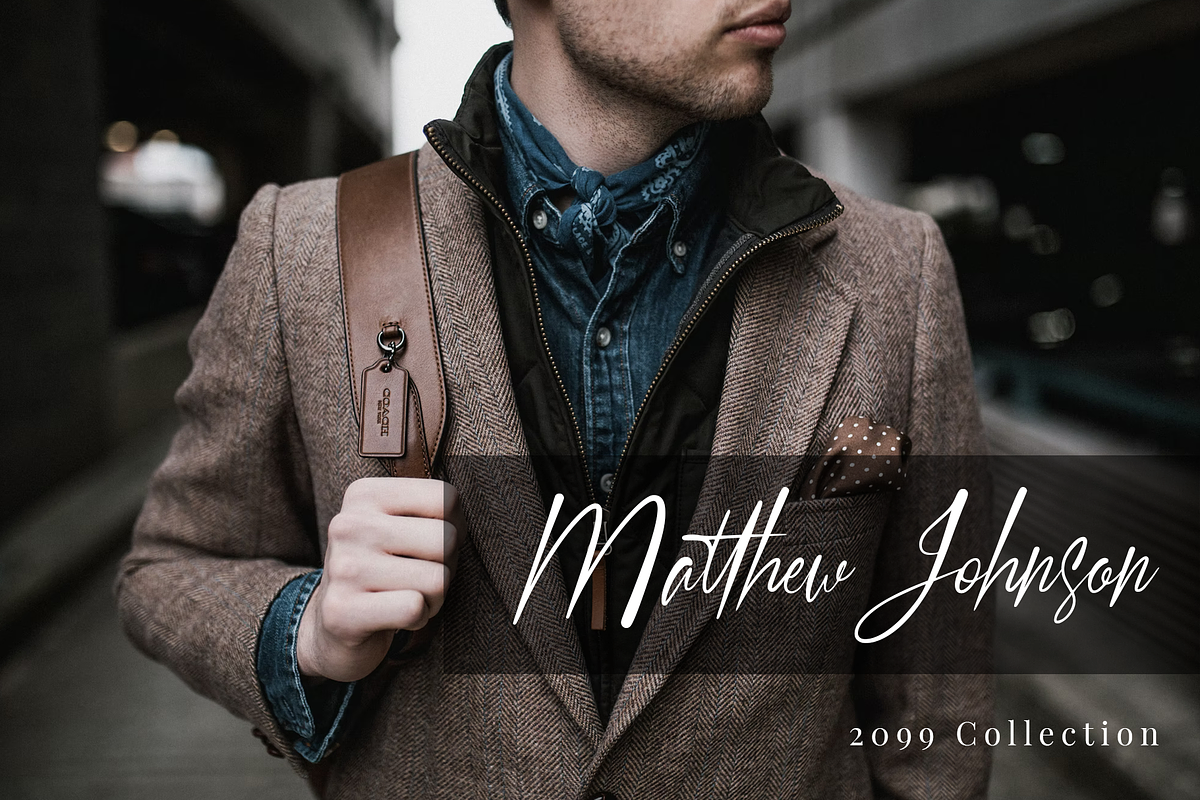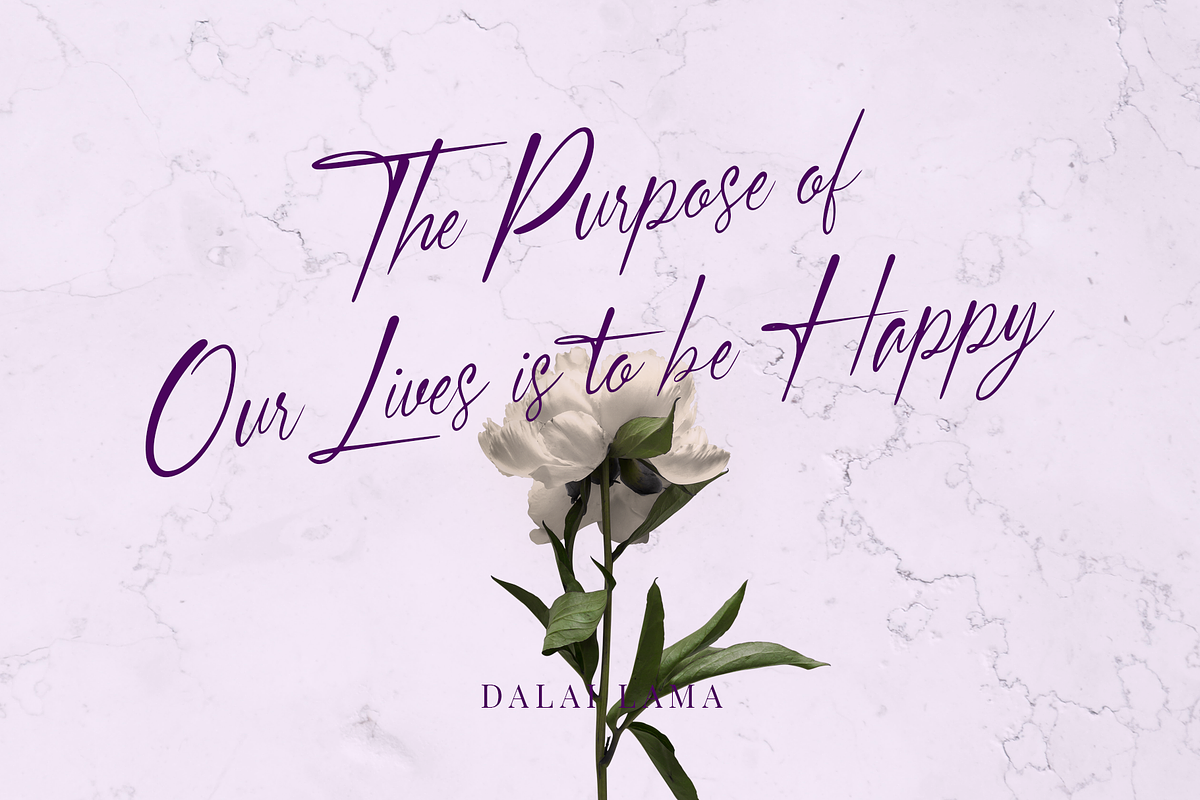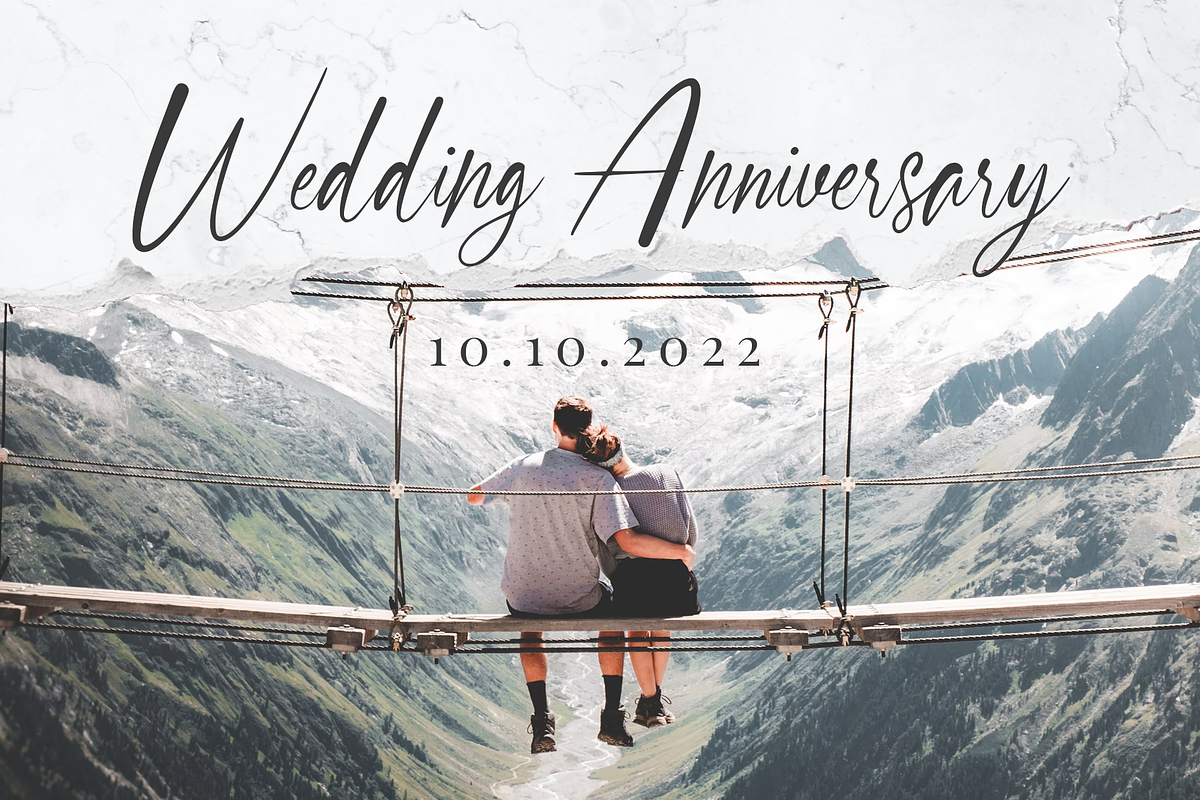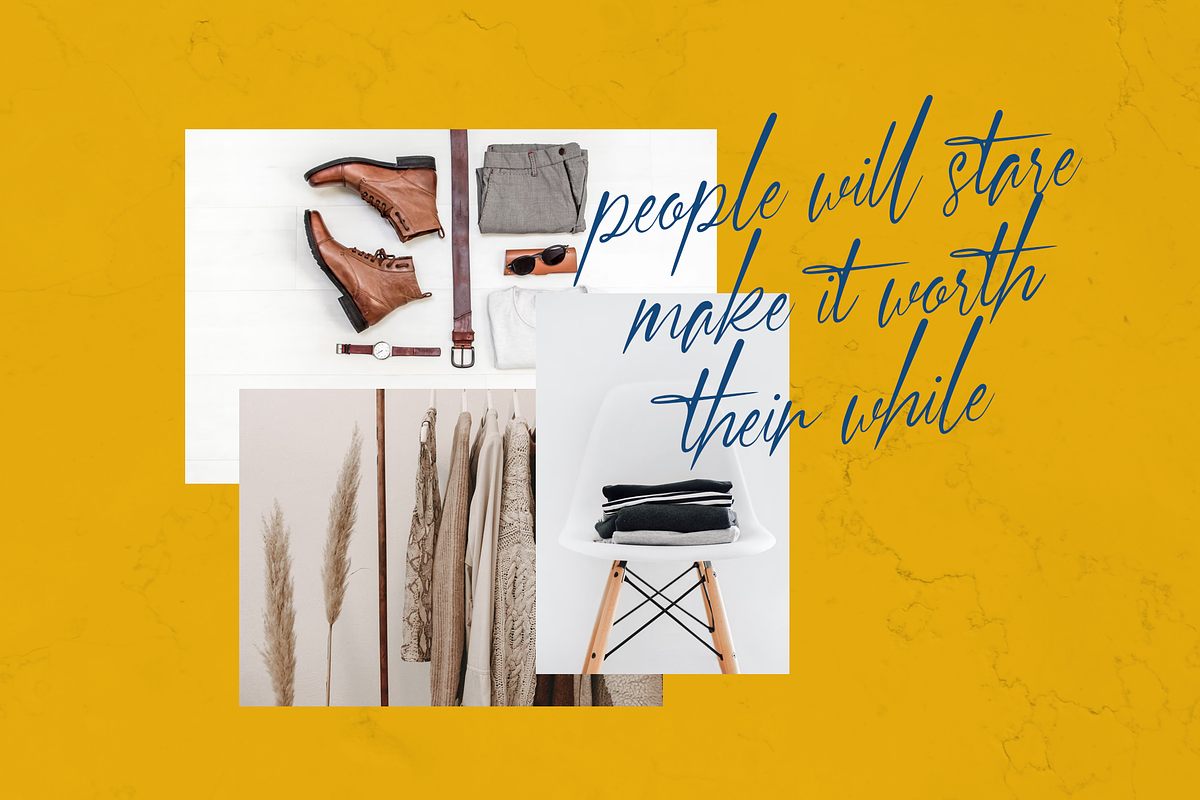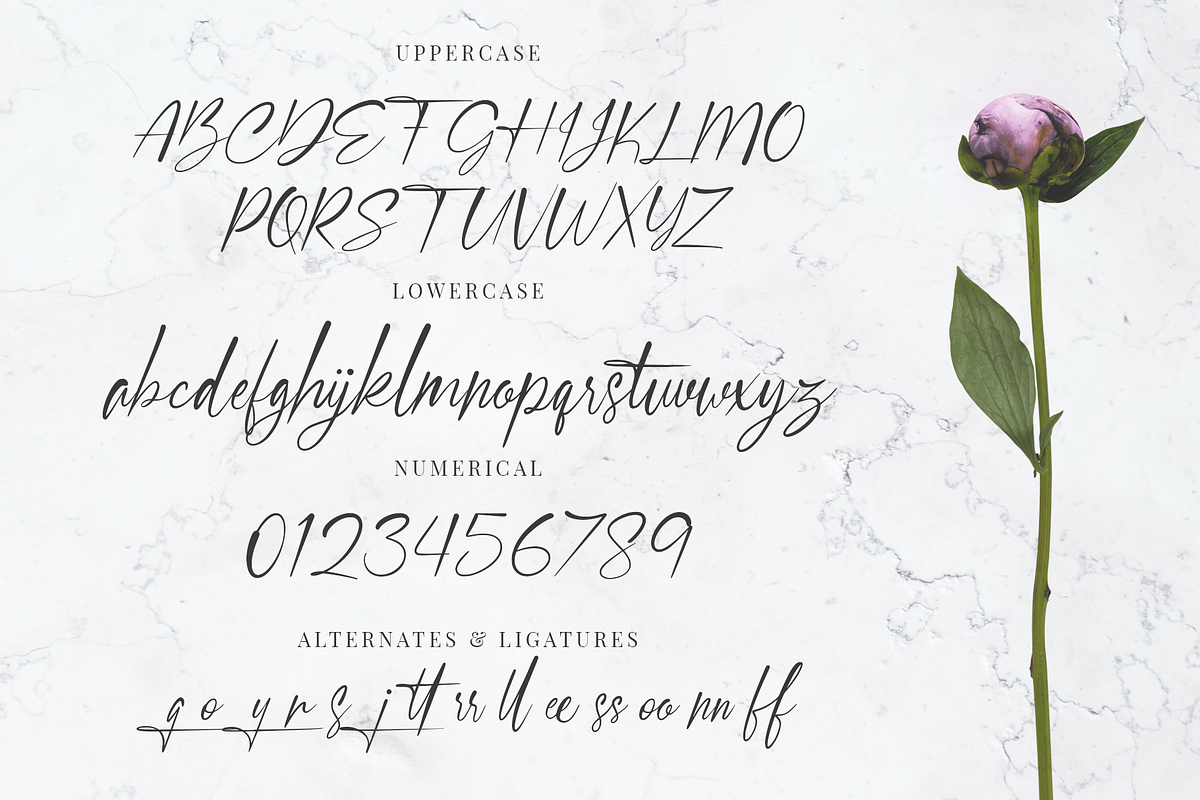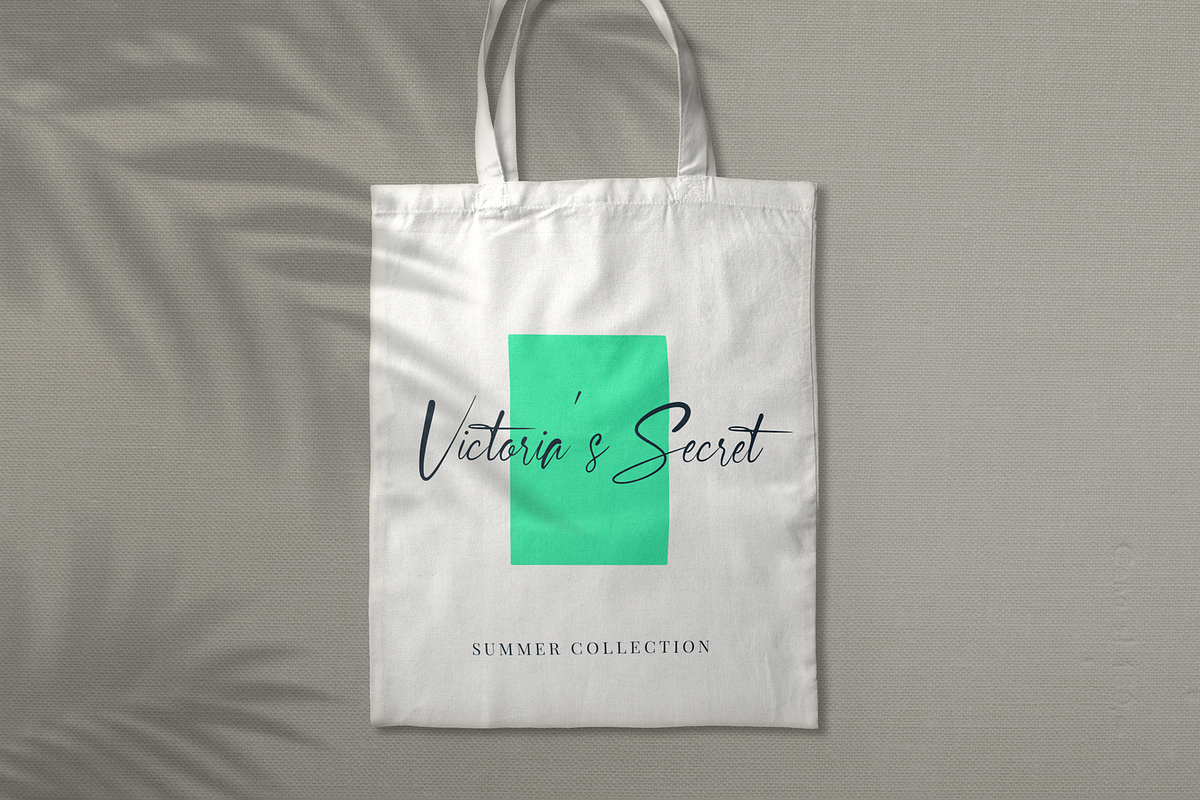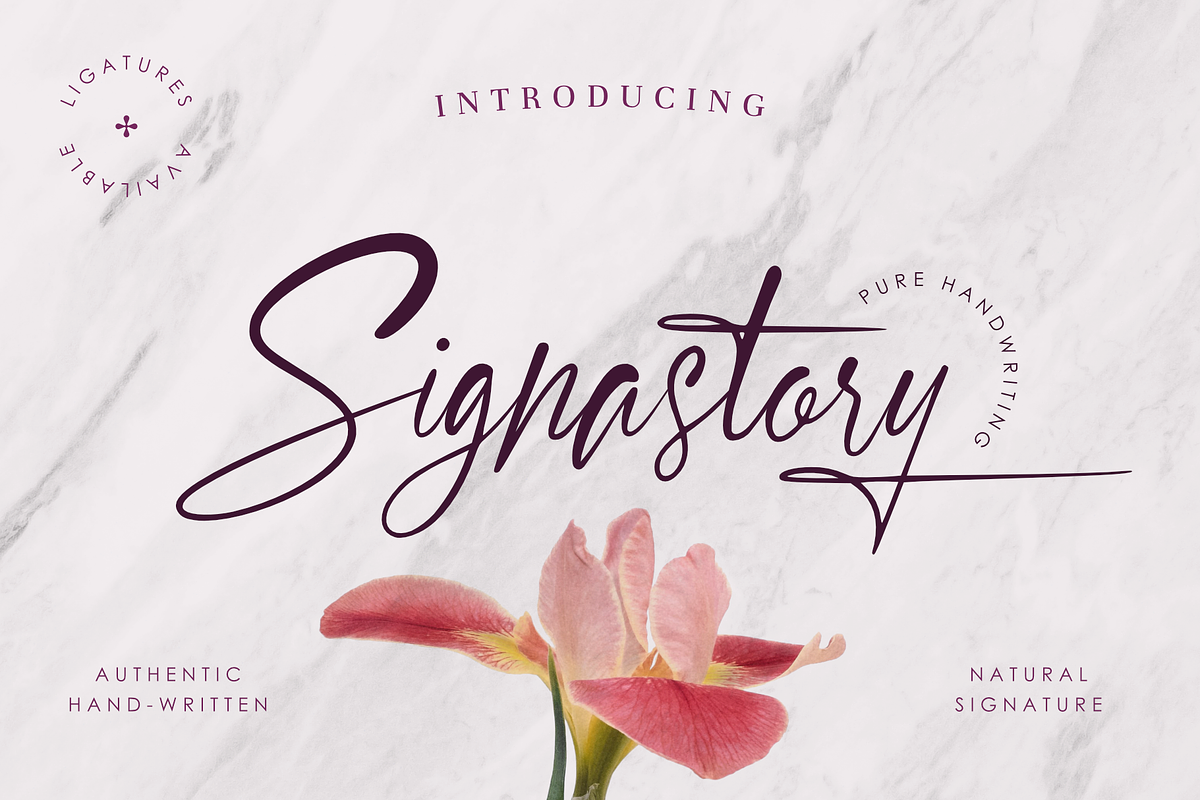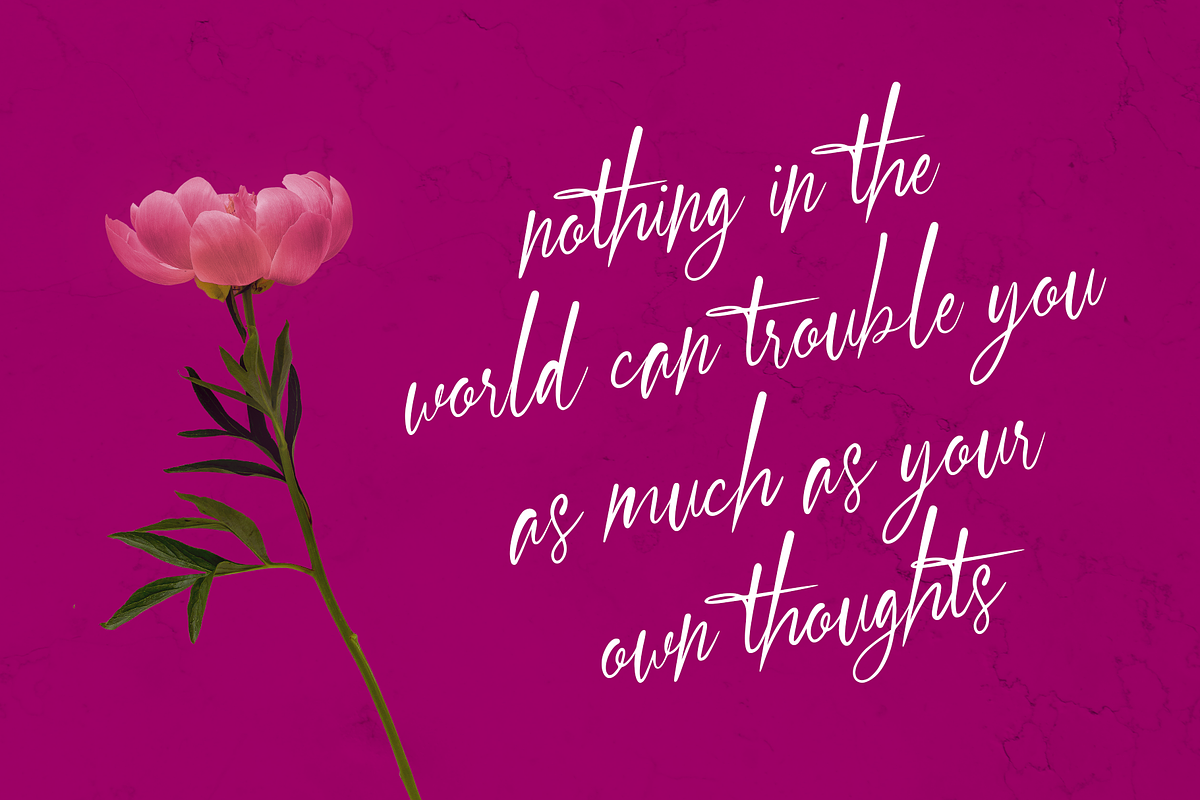
Signastory
Introducing our new font Signastory. A modern calligraphy font. This font very suitable for your feminine projects both modern or vintage vibes. This font contains alternates and ligatures for your needs.